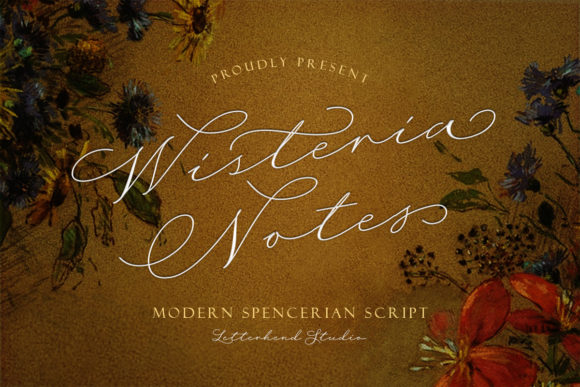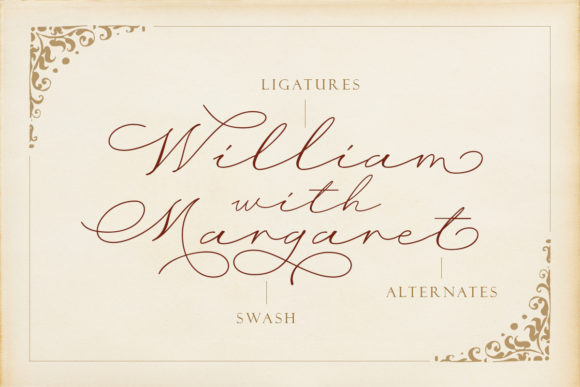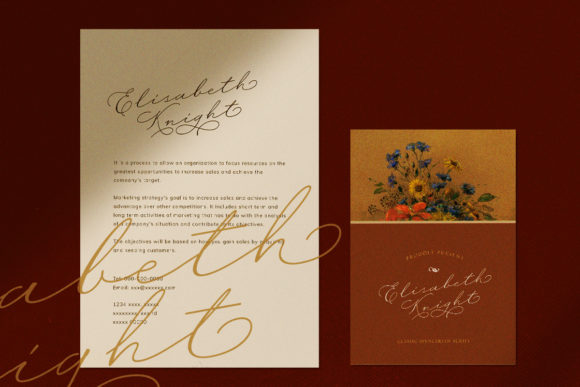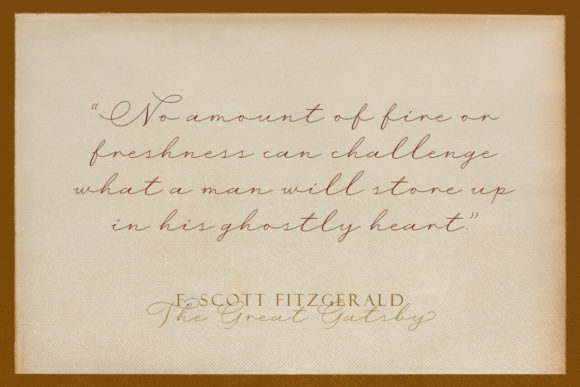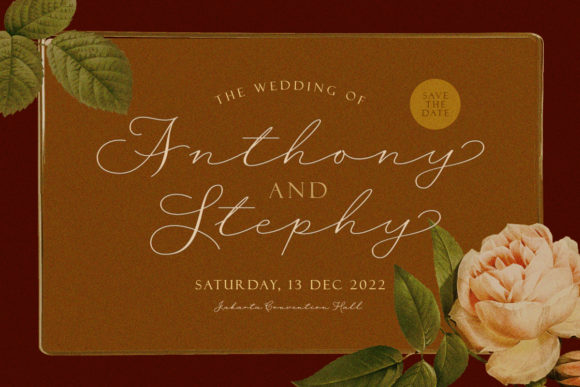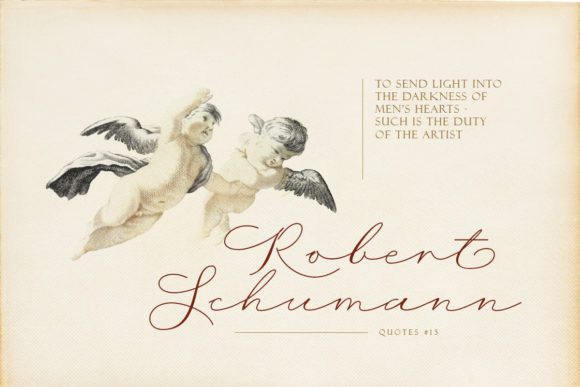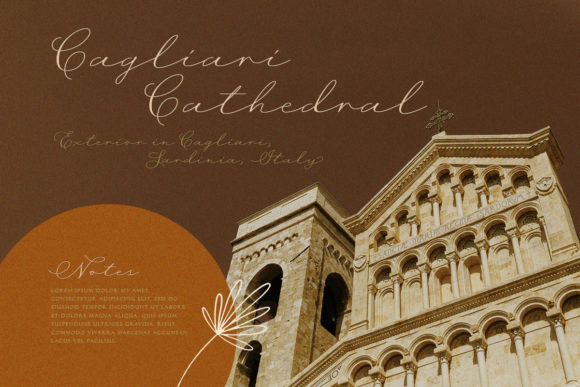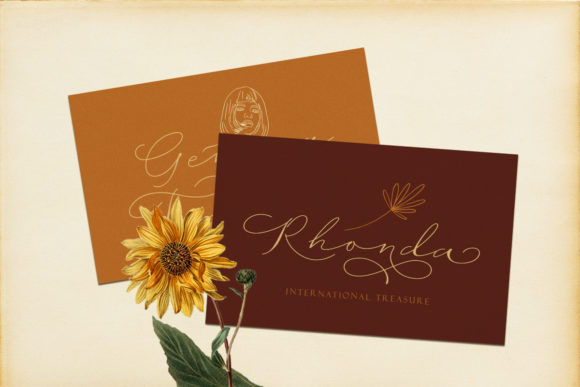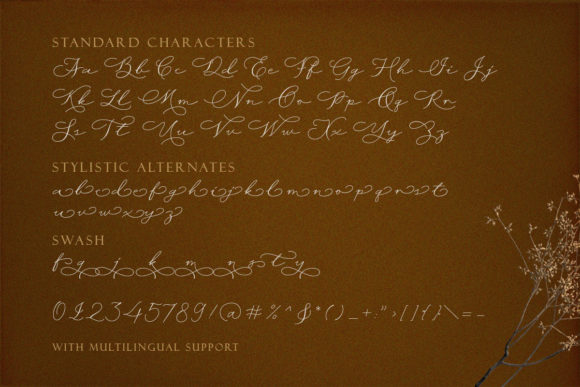
Wisteria Notes Font
About Wisteria Notes Font
Wisteria Notes is an elegant handwritten font. It has a classy style that will take your designs to the next level! Whether you’re looking for fonts for Instagram or calligraphy scripts for DIY projects, Wisteria Notes will turn any creative idea into a true piece of art!